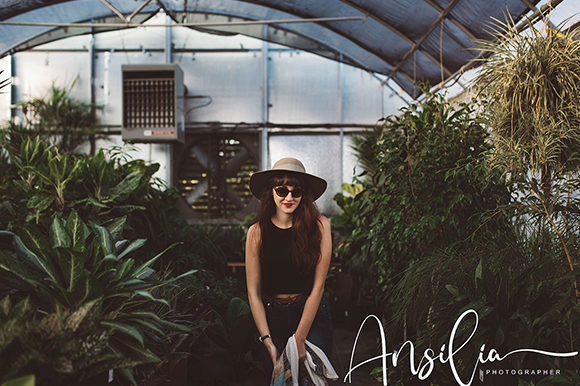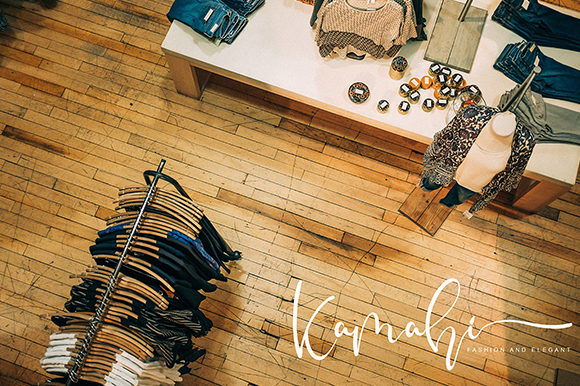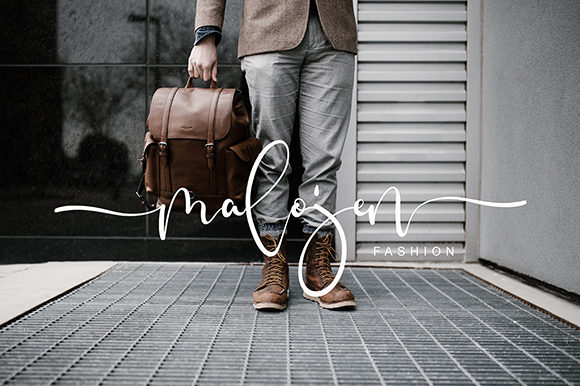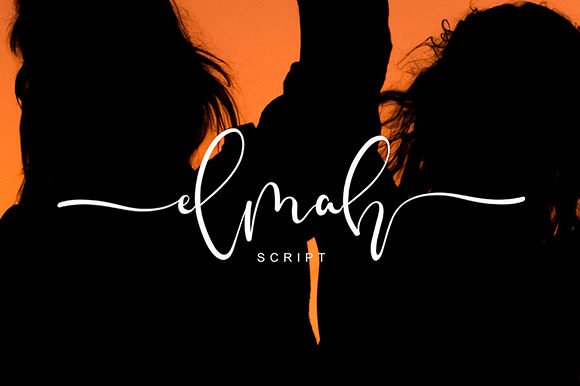
Introduction to Elmah Font
Elmah is a modern handwritten font with a light and lovely feel.
It will turn any design idea into a stand out .
Why Choose Elmah Font?
Elmah Font offers exceptional quality and versatility, making it a valuable addition to your design toolkit. Whether you’re creating for personal projects or commercial use, Elmah Font delivers professional results.